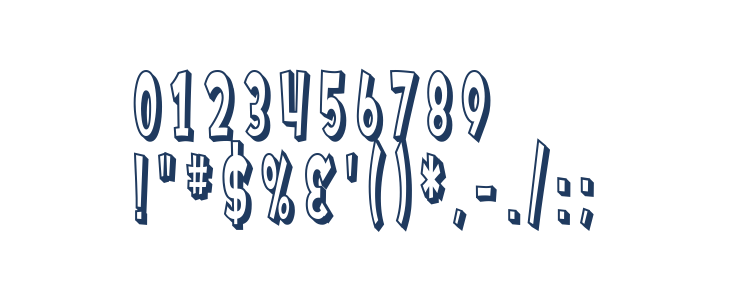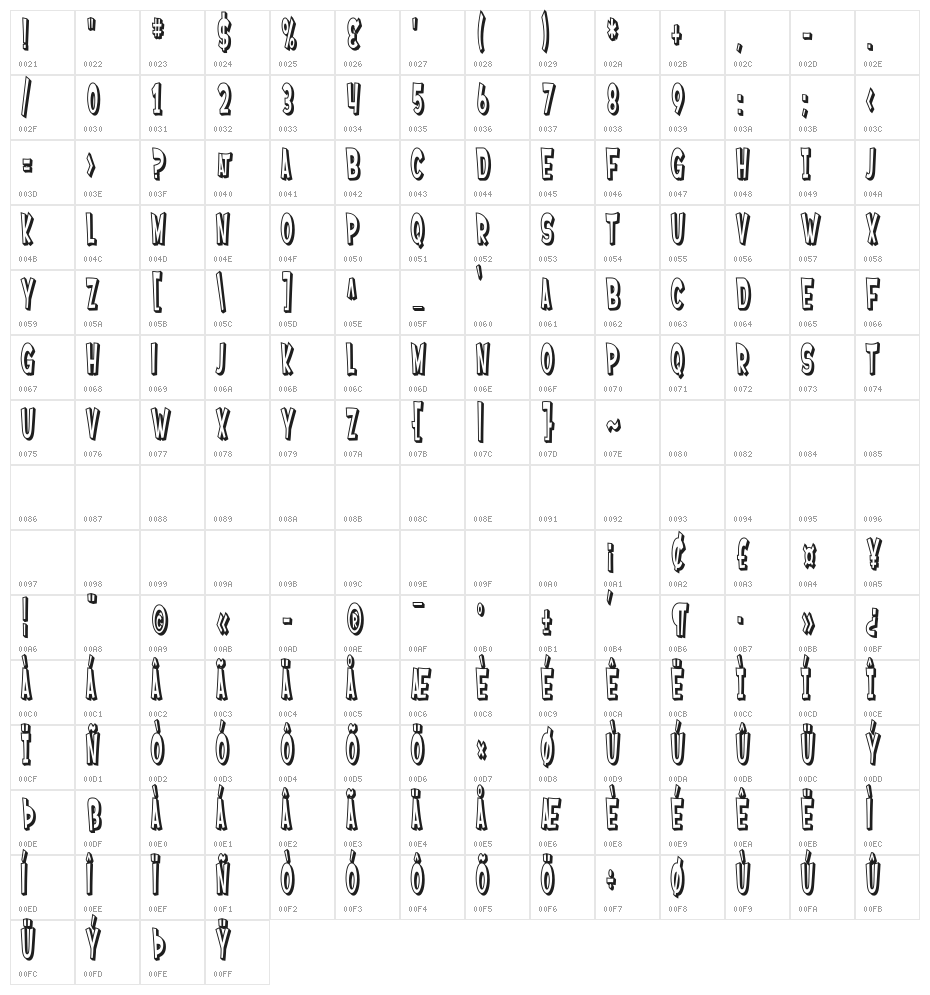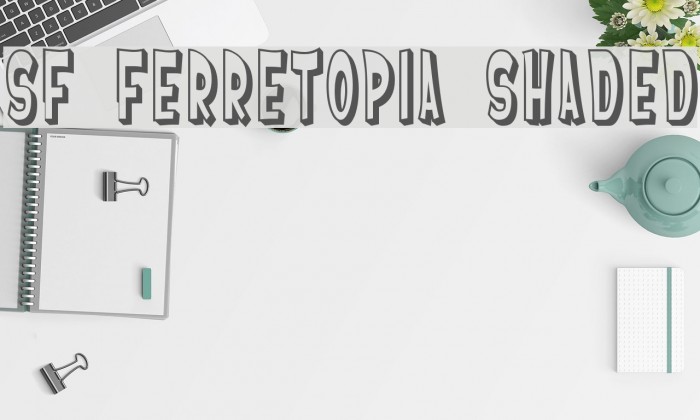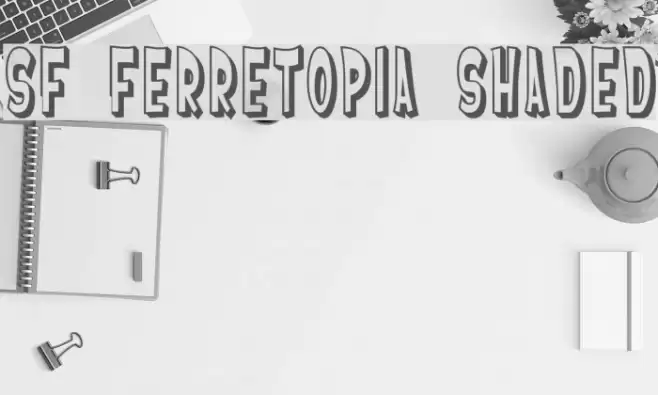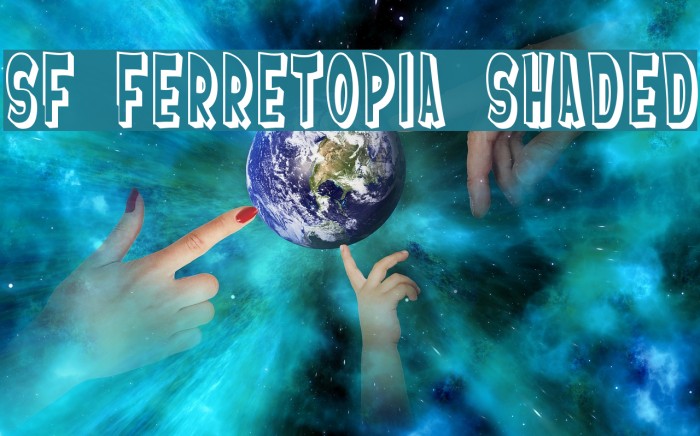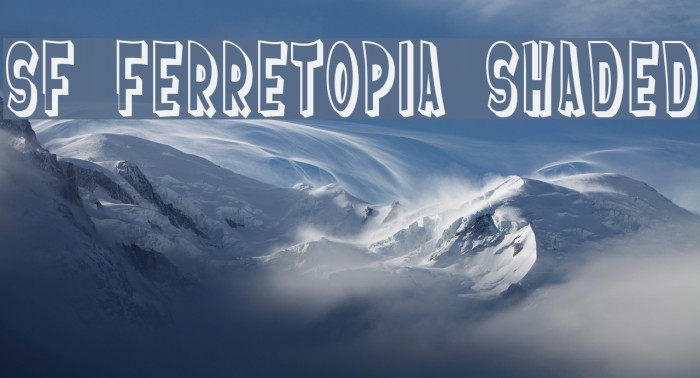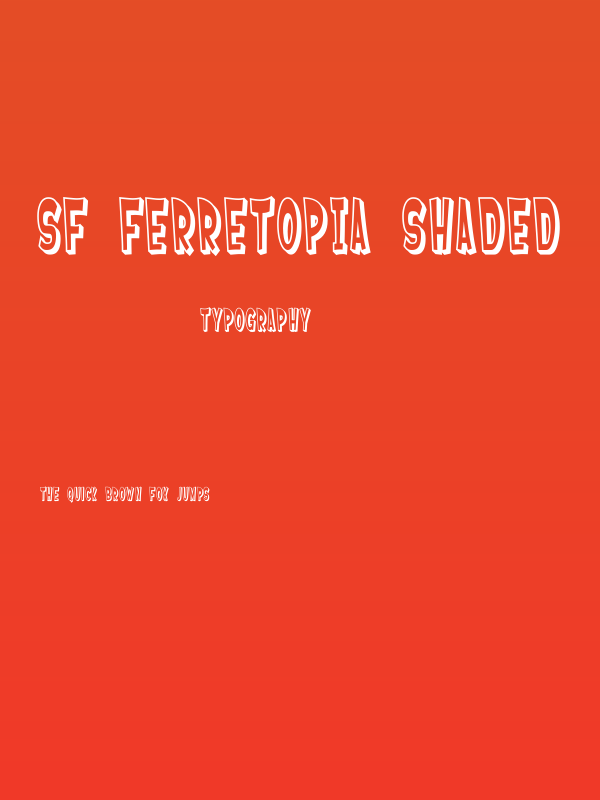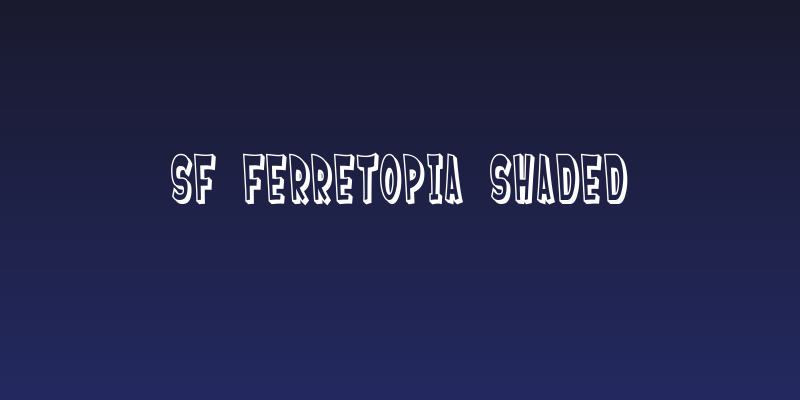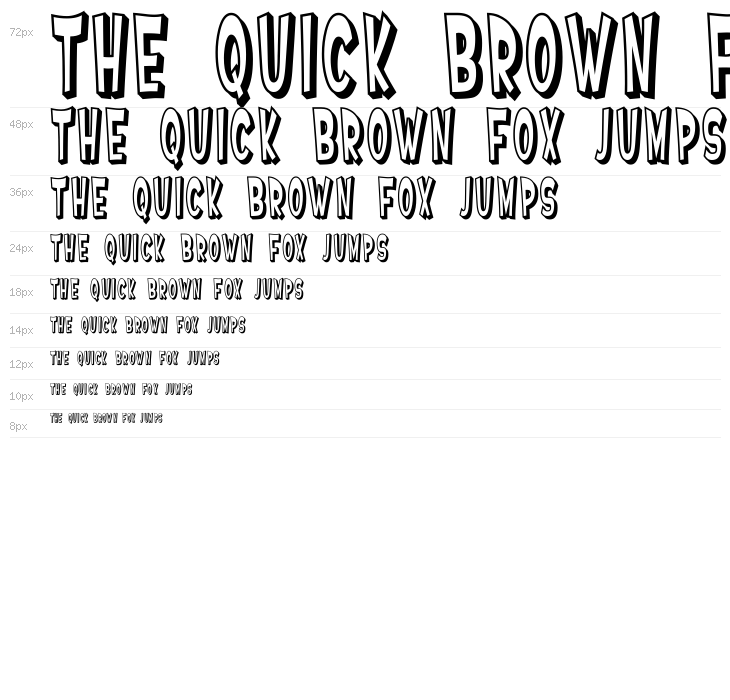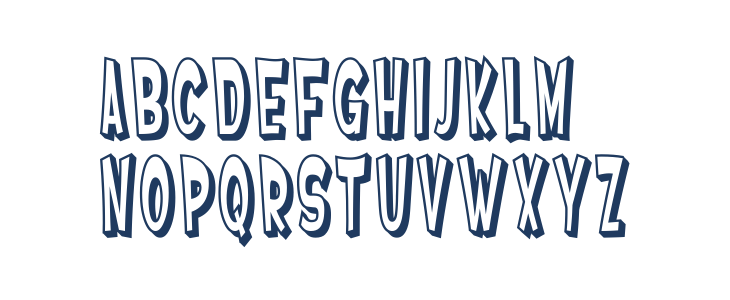
SF Ferretopia Shaded Font
SF Ferretopia Shaded Description
This font features a bold, three-dimensional style with a strong shadow effect that gives it a striking, impactful appearance. The characters are uppercase with a consistent thickness, creating a sense of uniformity and balance. The shadowing adds depth and a playful, dynamic feel, making it stand out in any design. The font is well-suited for eye-catching headlines and titles, where a bold statement is needed. Its decorative nature makes it ideal for projects that require a fun and engaging aesthetic.
| Proposed Projects | Ideal for posters, headlines, logos, and any design needing a bold, playful touch. |